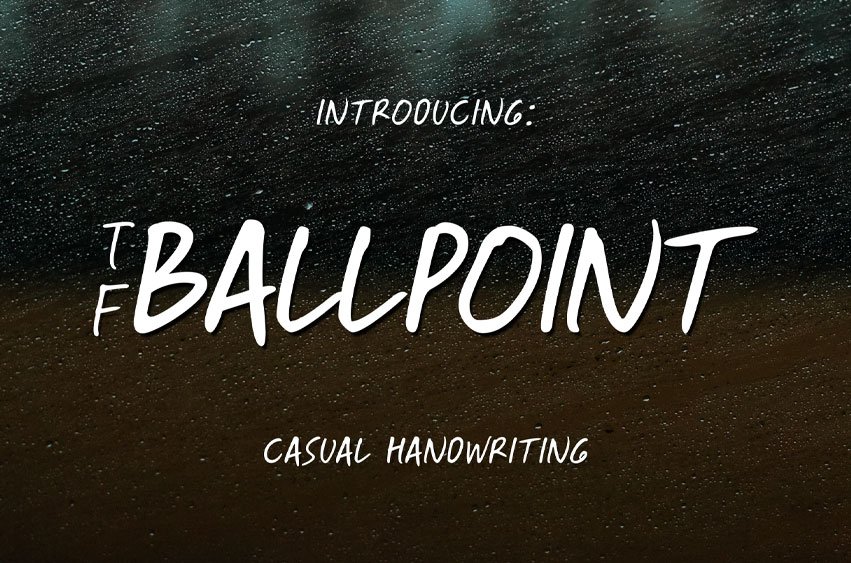
TF Ballpoint Font taken from our real life handwriting by ballpoint pen, digitally traced and adjusted.
Suits best for any project that needs an authentic handwriting text/feels. Also powered by multilingual characters.